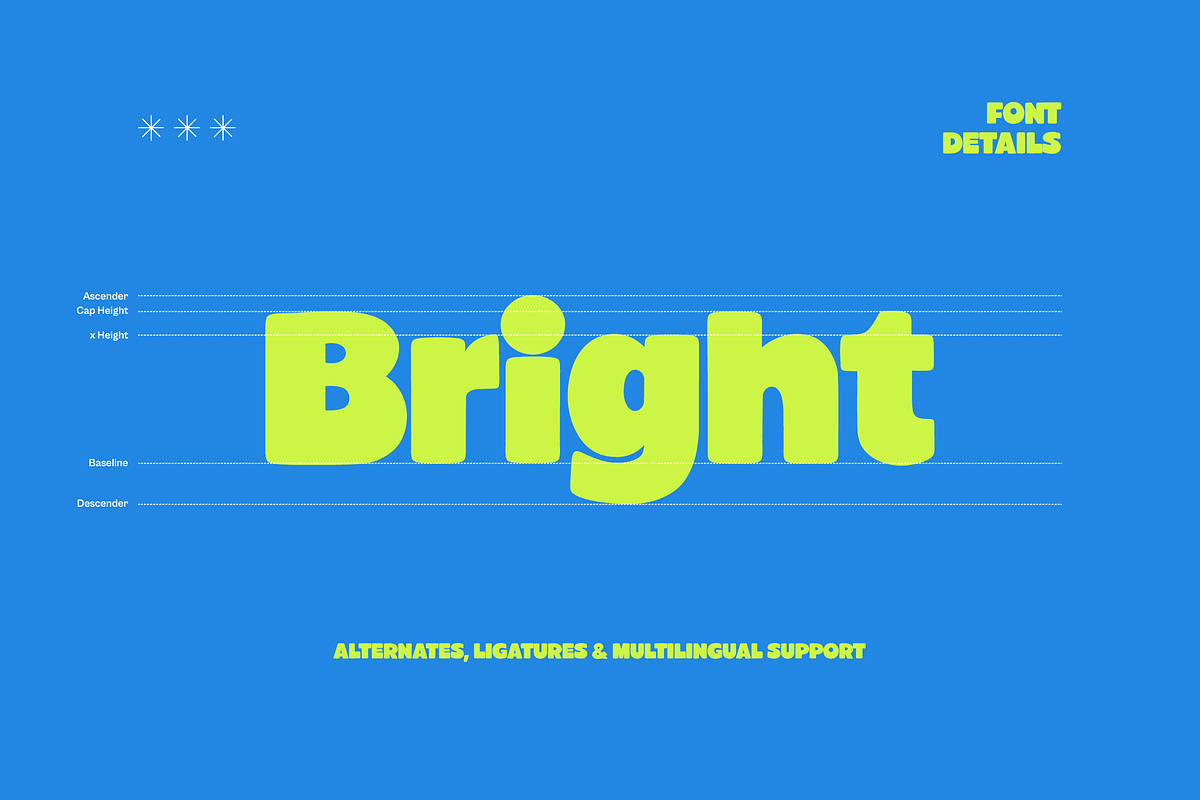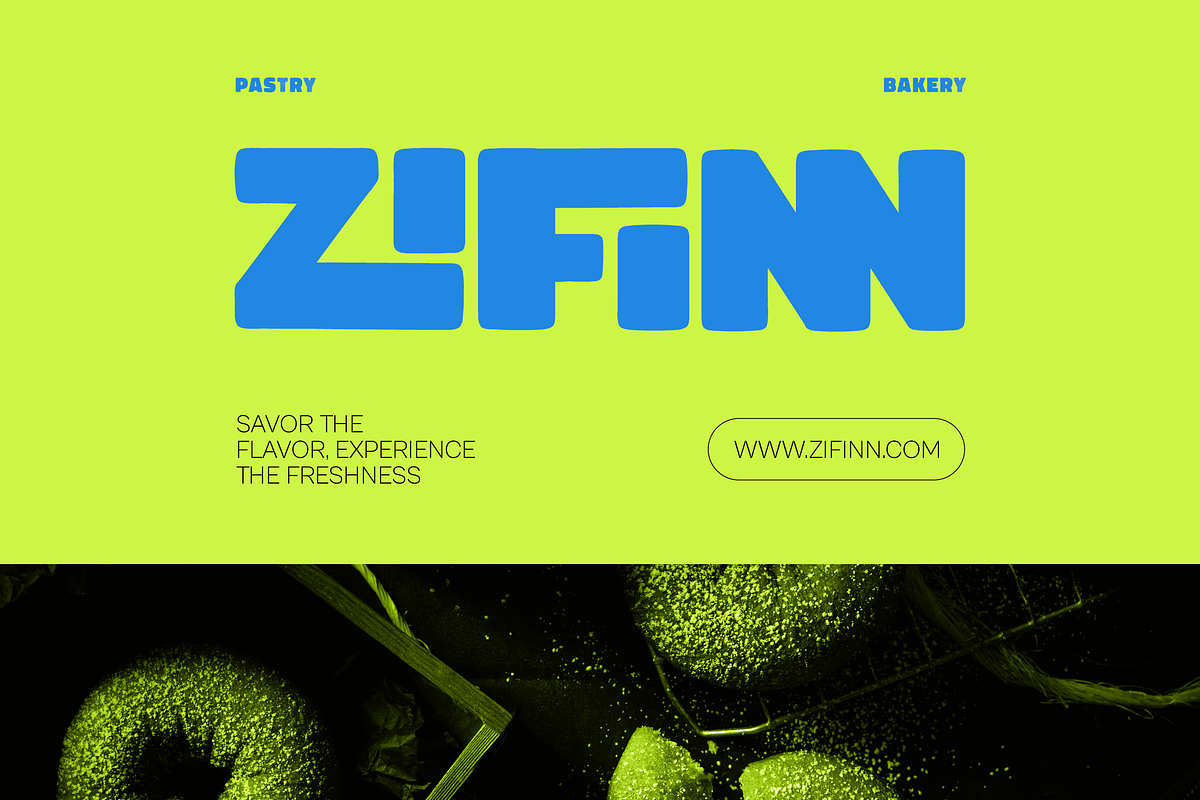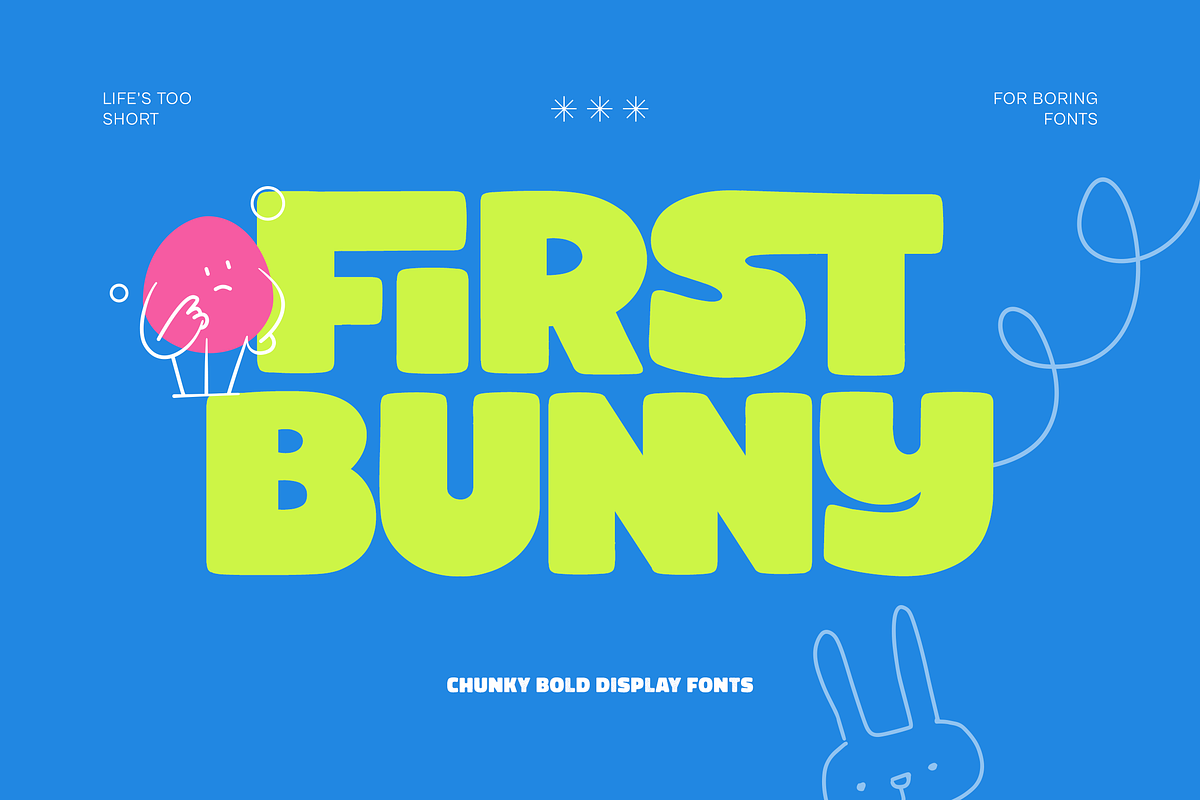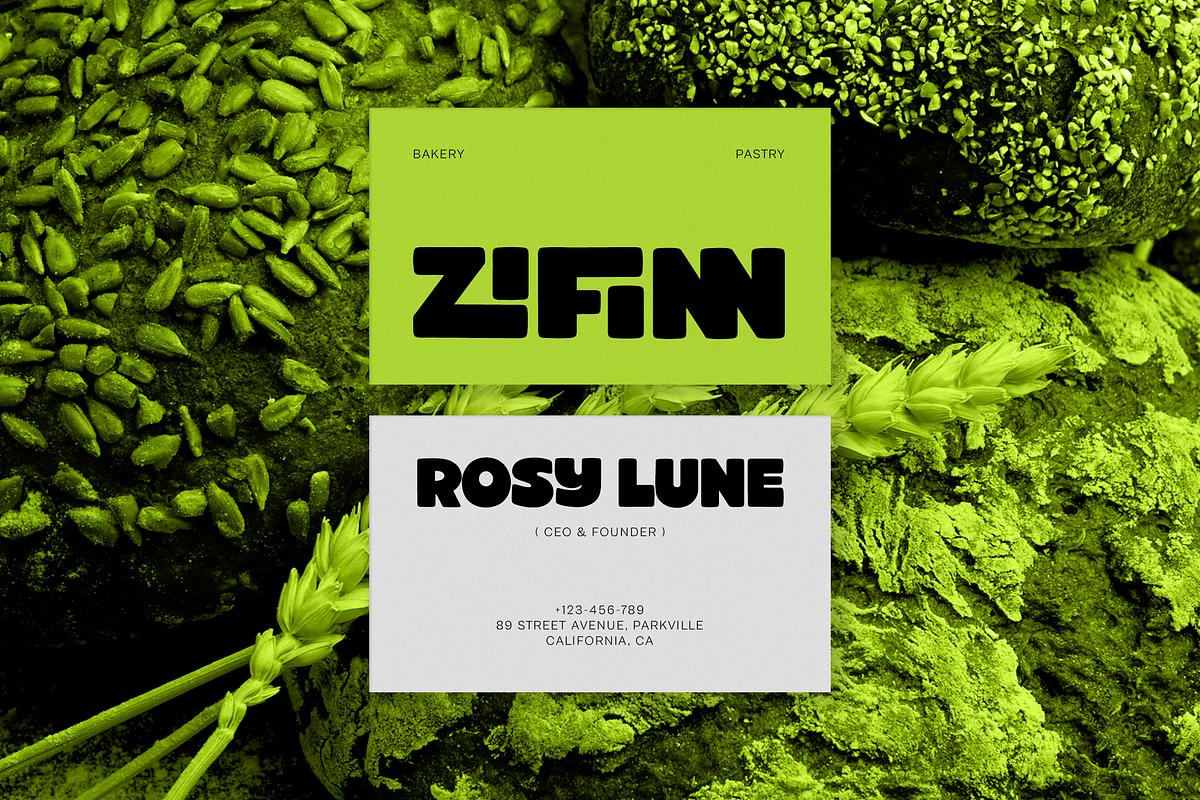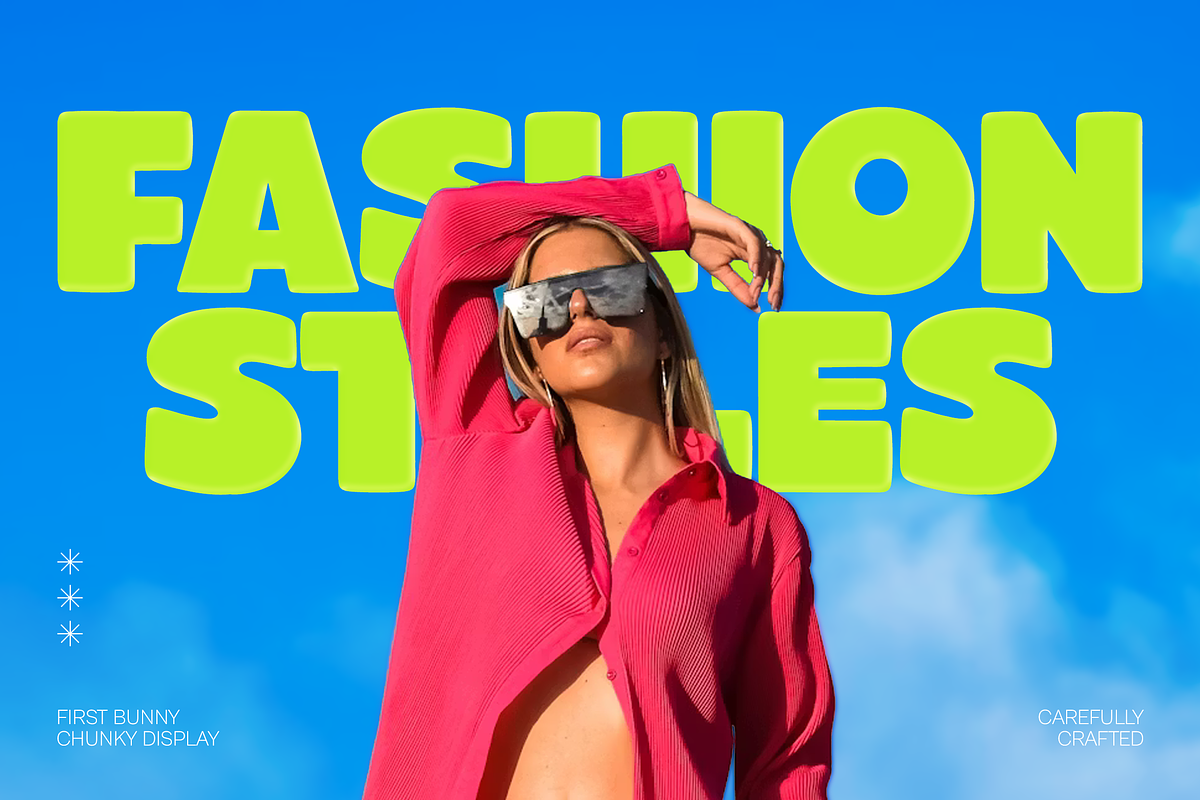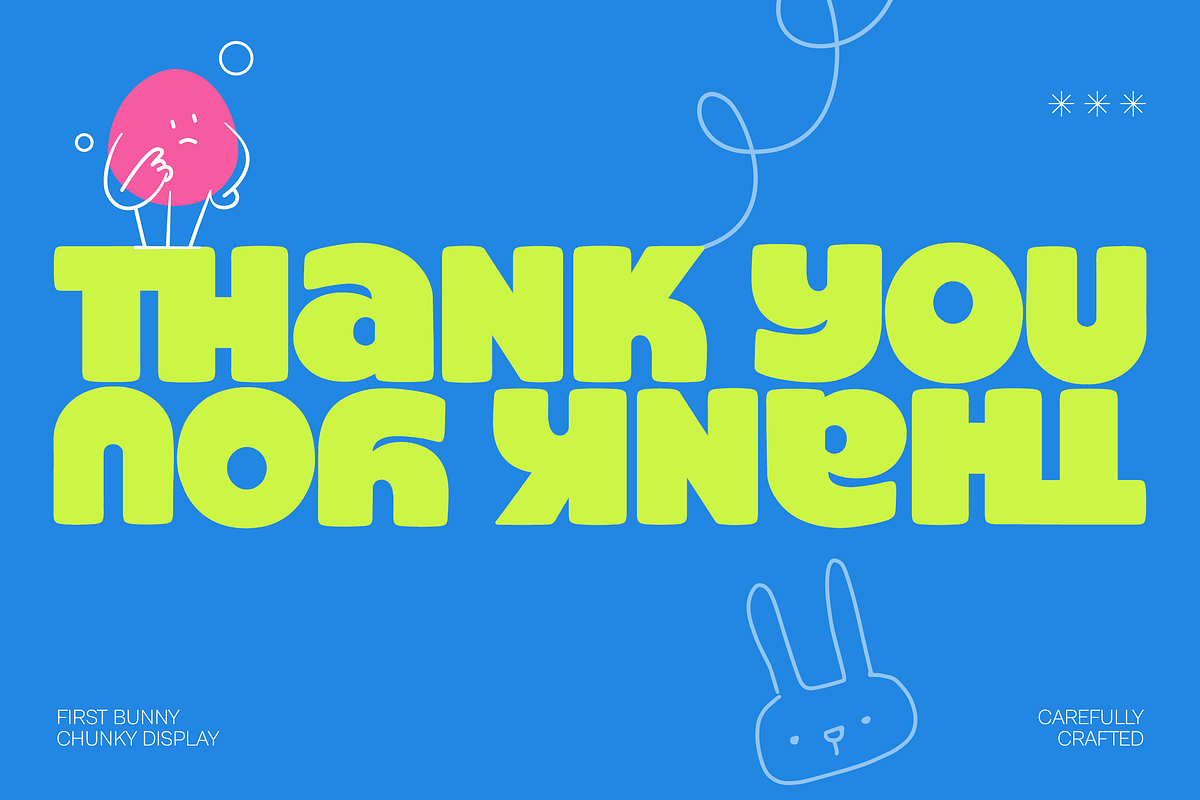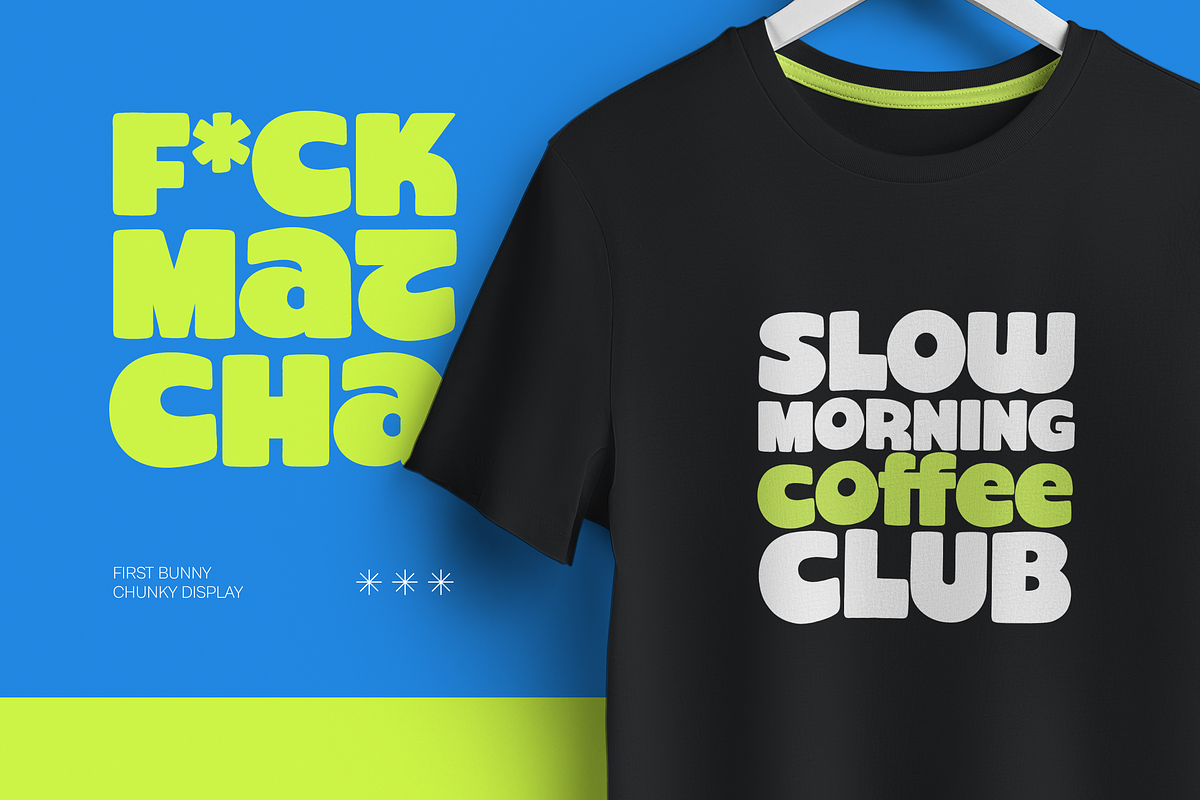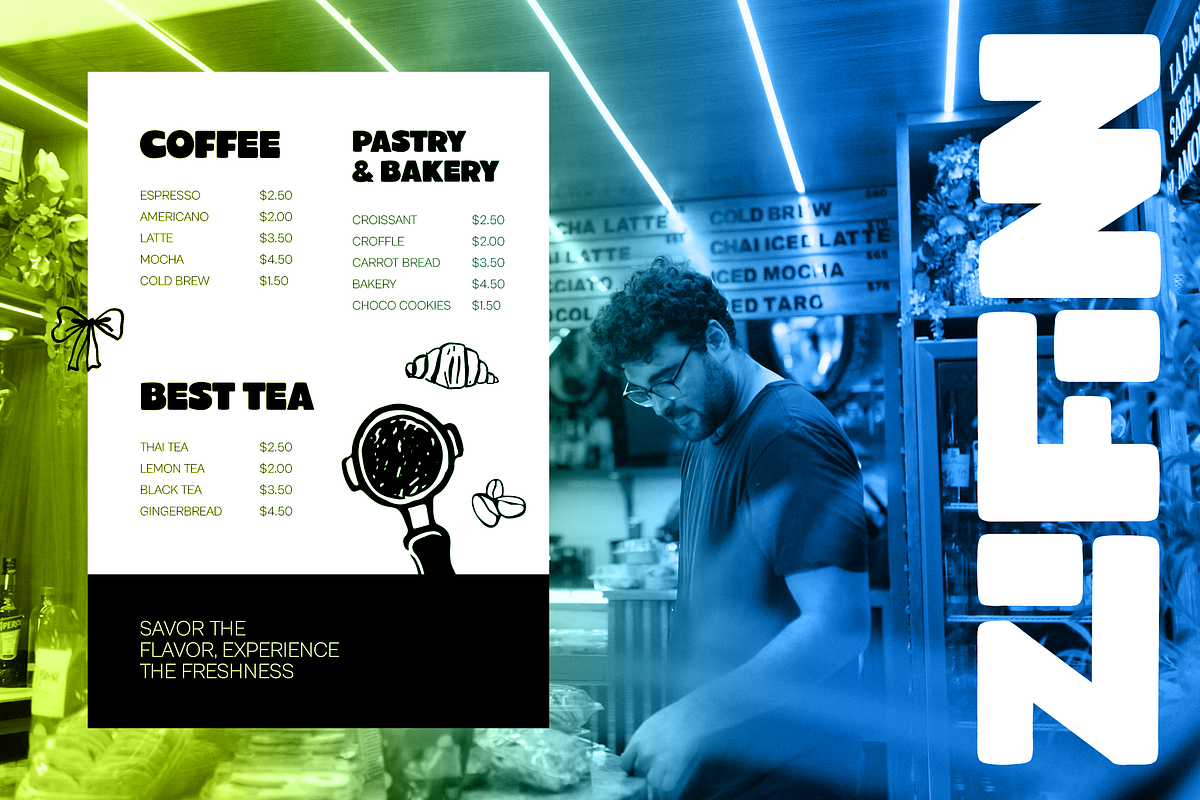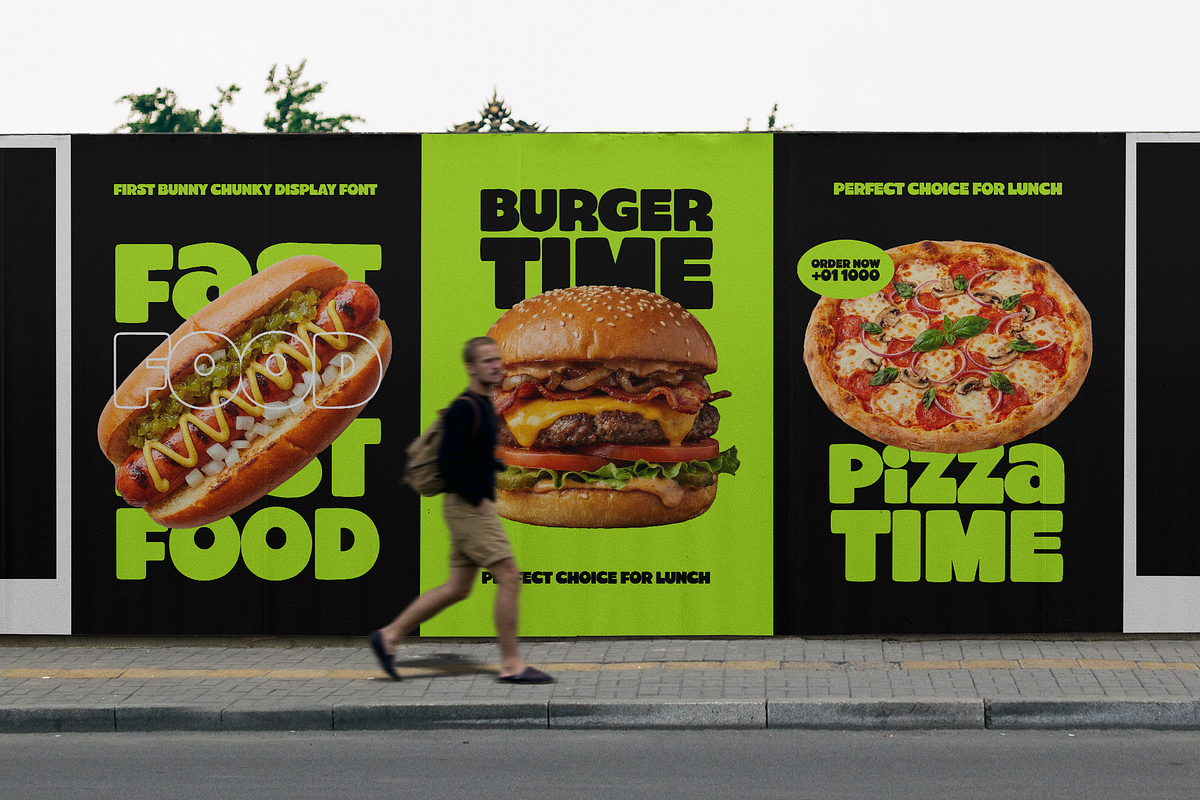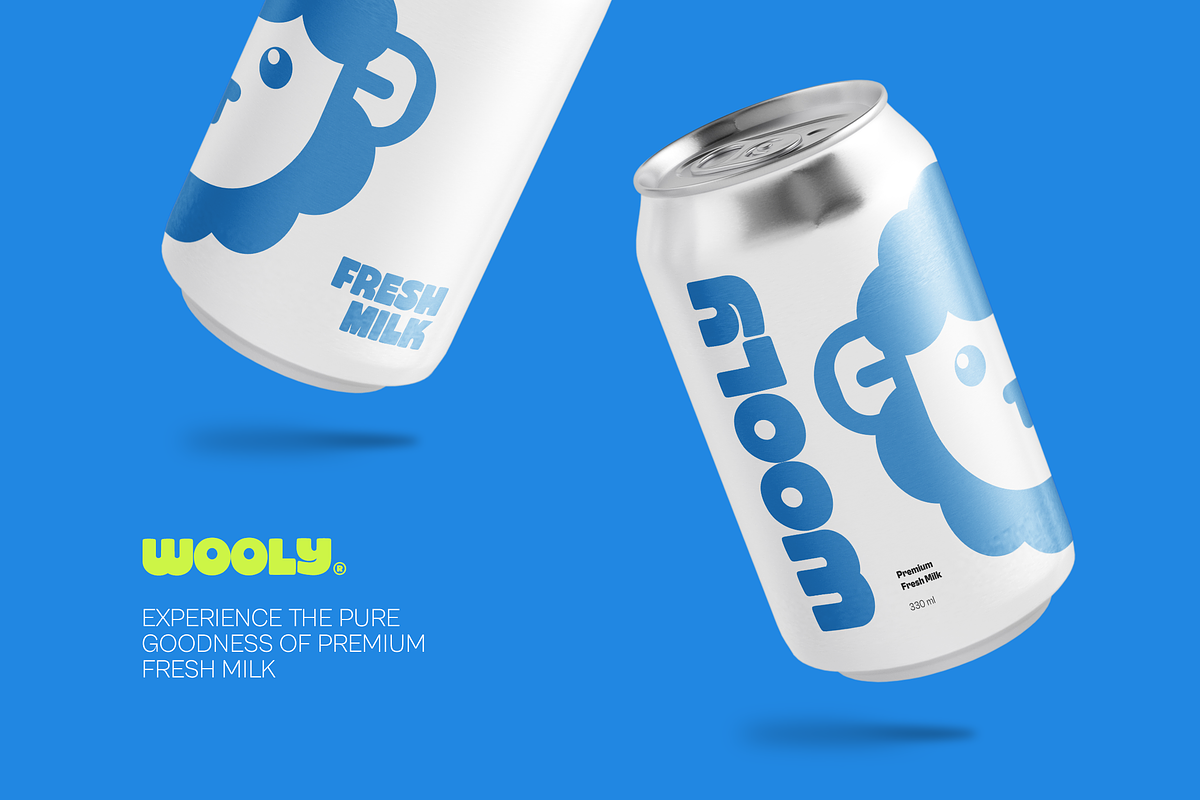
First Bunny - Chunky Bold Display
First Bunny is a chunky bold display font designed to bring a loud, joyful, and energetic personality to your creative projects. With its thick, rounded strokes and bubbly silhouette, this typeface captures the essence of retro nostalgia (think Y2K and late 90s) while maintaining a modern, polished aesthetic.
Created by Namara Creative, First Bunny isn’t just a font; it’s a statement. It transforms standard text into a visual playground, making it the perfect choice for designs that need to pop off the screen or shelf. whether you are designing a streetwear brand, a fun food menu, or a catchy social media headline, First Bunny delivers that “magical” touch.
- Chunky & Rounded: A heavy-weight sans serif with soft, rounded corners that feel friendly and approachable.
- Extensive Ligatures: Packed with unique standard and discretionary ligatures (e.g., fi, ff, fl, st, th) that allow letters to interlock and flow seamlessly, giving your text a custom hand-lettered feel.
- Stylistic Alternates: Includes creative variations for letters like a, e, g, m, n, and y to help you mix and match for the perfect look.
- Complete Character Set: Full uppercase and lowercase alphabet, numerals, punctuation, and symbols.
- Multilingual Support: Ready for global projects with accented characters and international glyphs.